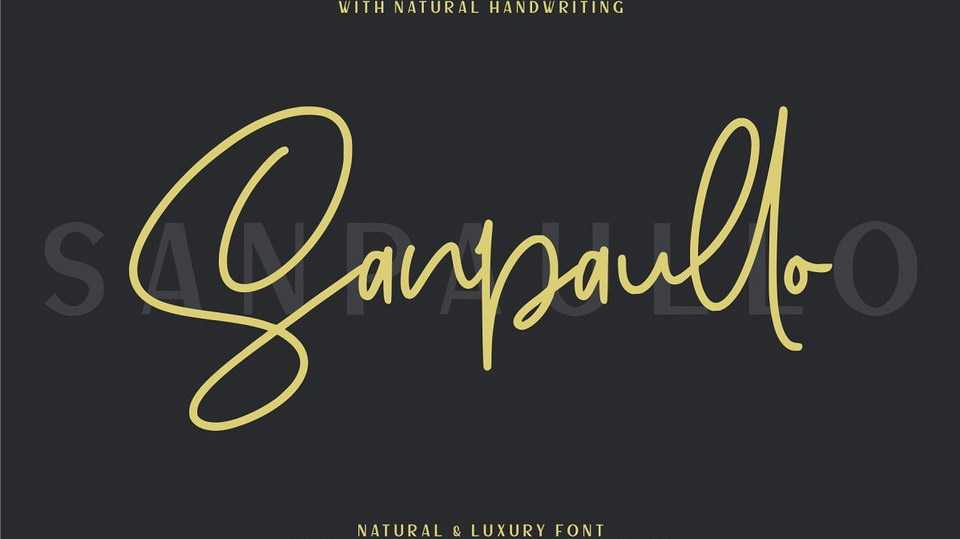
Download Sanpaullo font, a stylish natural handwritten signature script Sanpaullo is perfect for logo, invitation, stationery, wedding designs, social media posts, label, photography, watermark, special events or anything.
Designer: Garisman Studio